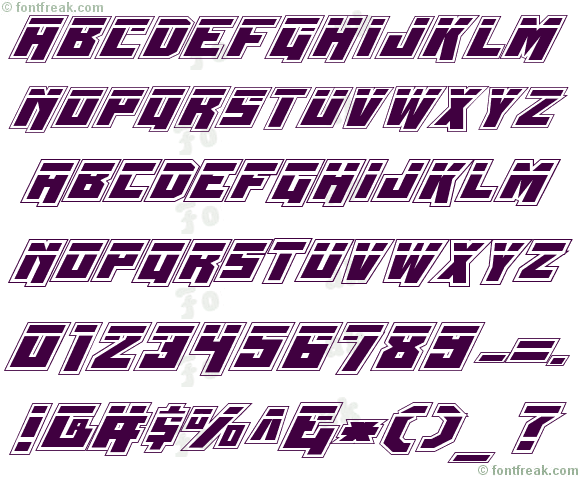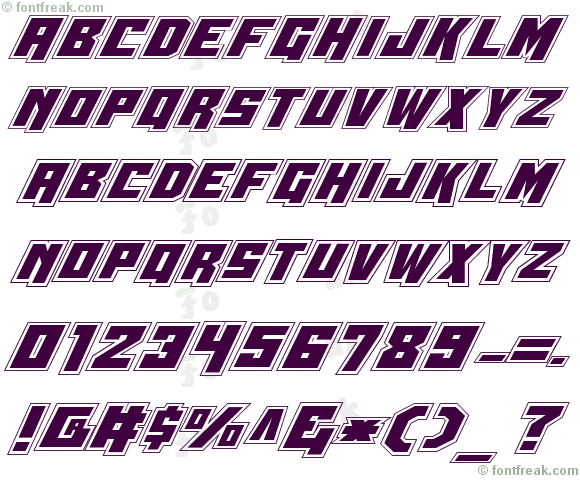
Whiskey Bravo Victor Pro
About Whiskey Bravo Victor Pro
Whiskey Bravo Victor Pro is a striking display font designed by Daniel Zadorozny, categorized under decorative fonts. This typeface features bold, italicized strokes that create a dynamic visual experience. Its unique 3D appearance, enhanced by laser and halftone effects, adds depth and dimension, making it suitable for a variety of creative projects. The condensed form and straight edges contribute to its modern aesthetic, while the gradient and outline variations provide versatility for different design needs.
This font excels in applications such as movie posters, where its attention-grabbing design can effectively convey excitement and drama. It is also ideal for restaurant menus that aim to showcase a contemporary vibe, helping to attract the eye of potential diners. Additionally, Whiskey Bravo Victor Pro can be utilized for branding purposes, particularly for businesses looking to convey a bold and innovative identity. Graphic designers and content creators will find this font particularly appealing for promotional materials, social media graphics, and event flyers, as its strong visual presence ensures that messages stand out.
What sets the Whiskey Bravo Victor Pro font apart is its ability to combine artistic flair with practical usability. Its distinctive features allow it to resonate in various contexts, ensuring that designs not only capture attention but also communicate effectively. For those seeking a bold and memorable typeface, the Whiskey Bravo Victor Pro font free download is an excellent choice for elevating design projects to new heights.